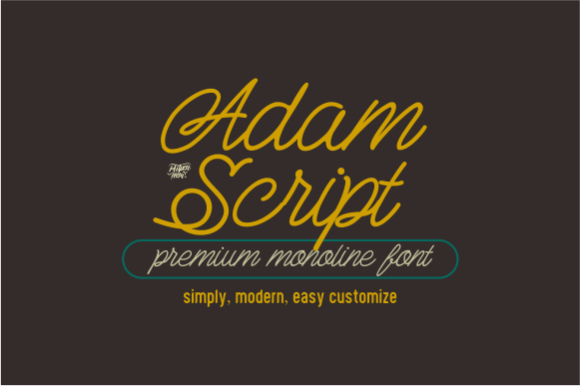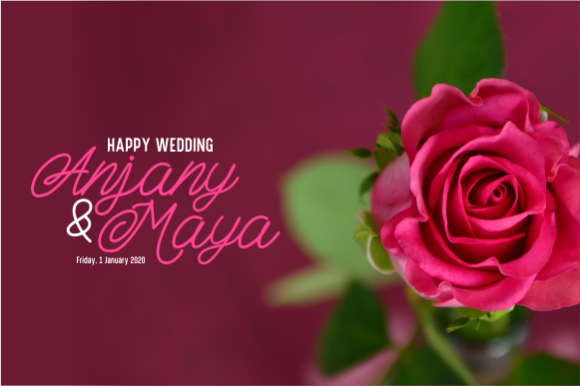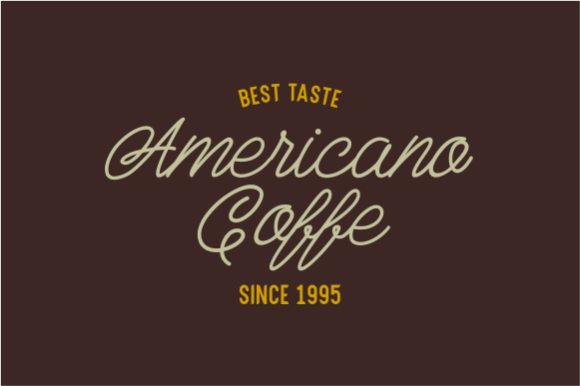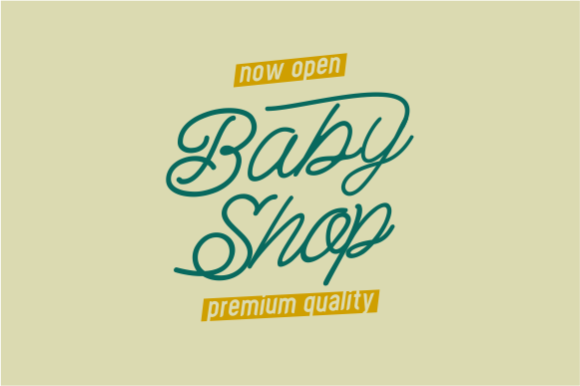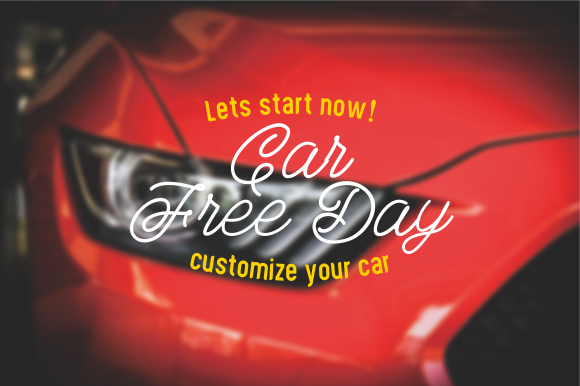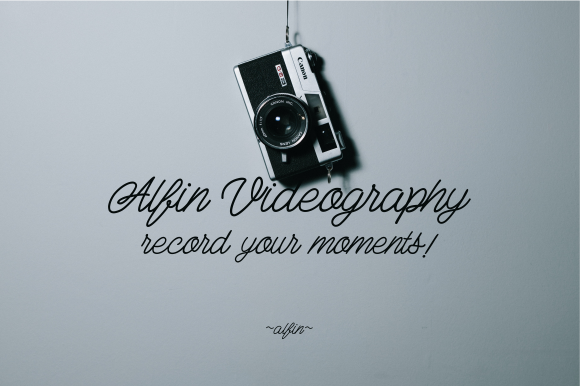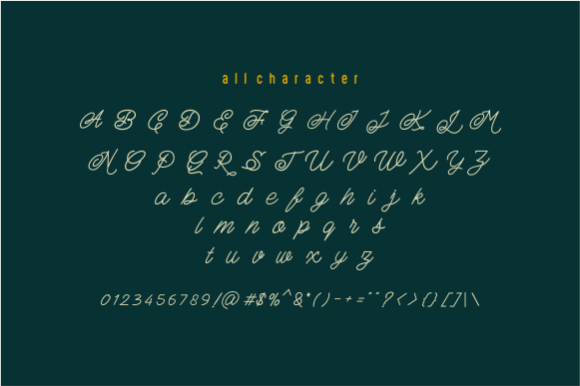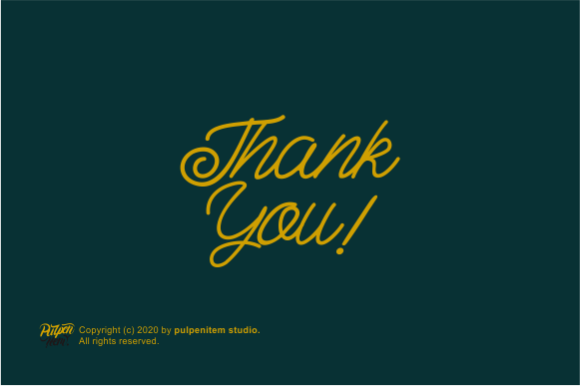
Adam Script Font
About Adam Script Font
Adam Script is an elegant and flexible monoline font. It features an incredibly classic style, while still keeping a friendly feel. Adam Script is the perfect font for making original and outstanding designs.